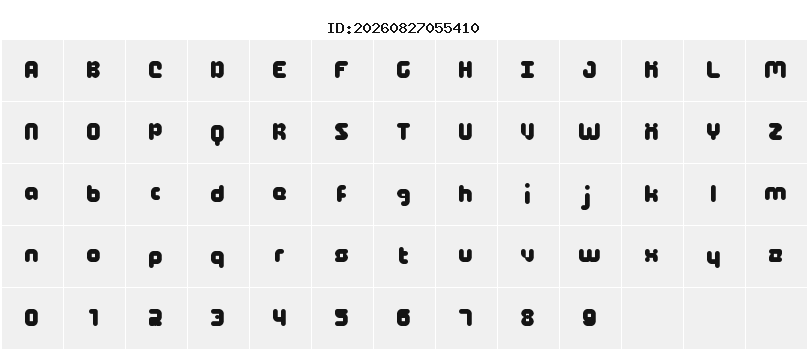
5Maach Preview
• Font Name: 5Maach
• Font ID: FontStruct 5Maach
• Full Font Name: 5Maach Regular
• PostScript Name: 5Maach
• Character Count: 81
• Copyright: Copyright Noah - 10 year old typomaniac 2013 ‚Äú5Maach‚Äù is based on ‚ÄúMooch‚Äù by ‚Äúafrojet‚Äù (http://fontstruct.com/fontstructors/afrojet)
• Designer: Noah - 10 year old typomaniac
• Manufacturer: http://fontstruct.com
• Description: ‚Äú5Maach‚Äù was built with FontStruct ‚Äú5Maach‚Äù is based on ‚ÄúMooch‚Äù by ‚Äúafrojet‚Äù (http://fontstruct.com/fontstructors/afrojet)
About 5Maach.ttf
5Maach.ttf is a modern, elegant sans-serif font designed for ultimate readability and visual harmony. Perfect for branding, headlines, web design, and print materials.